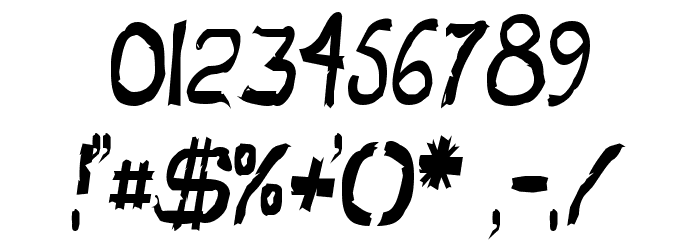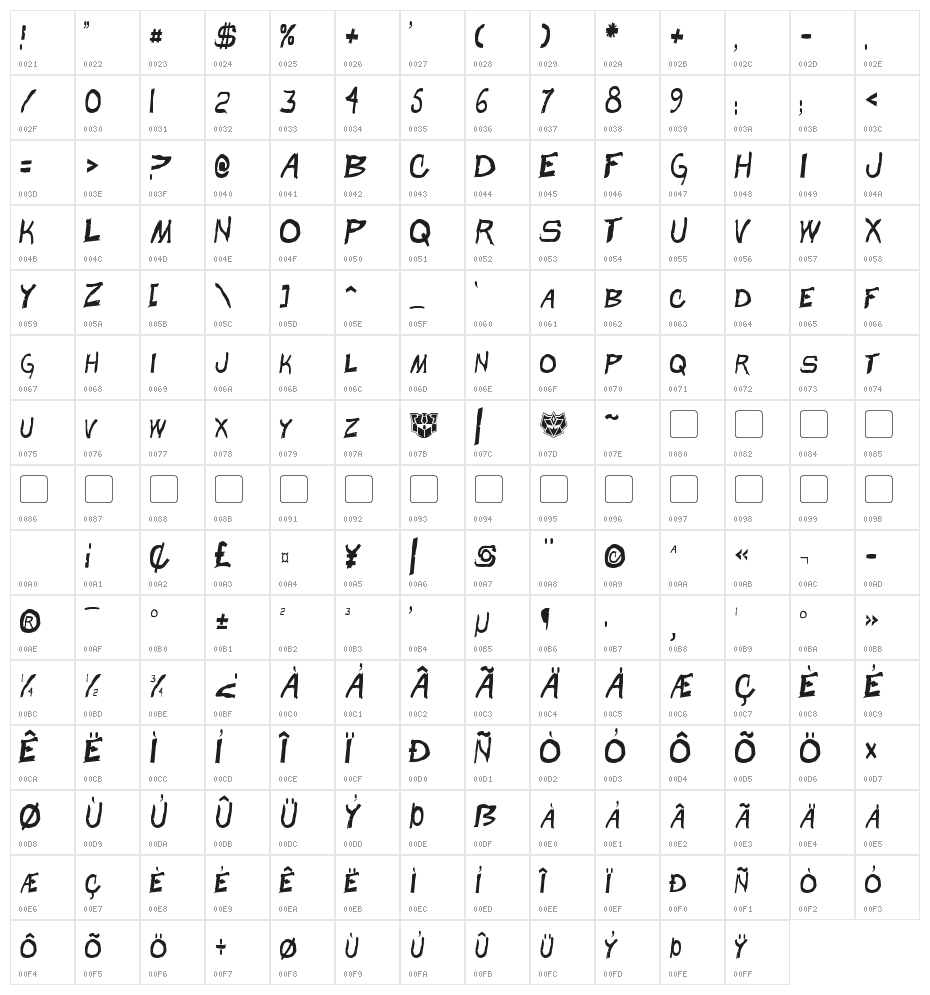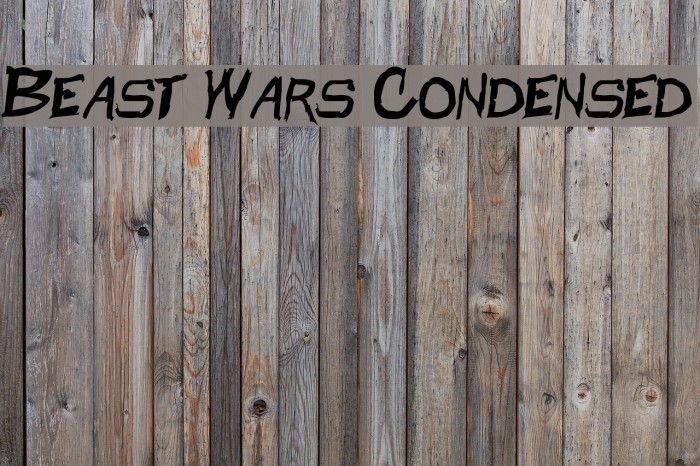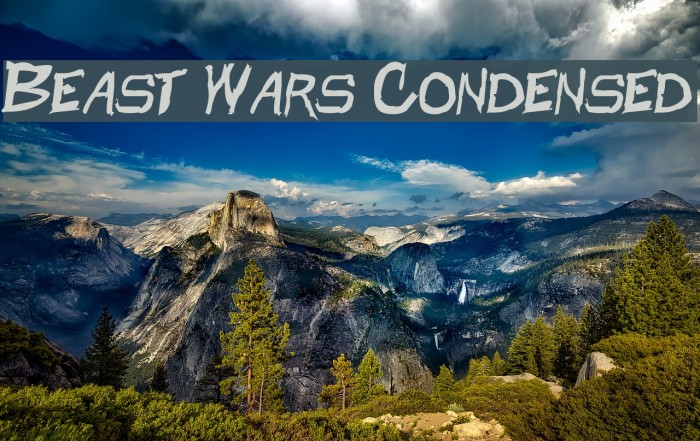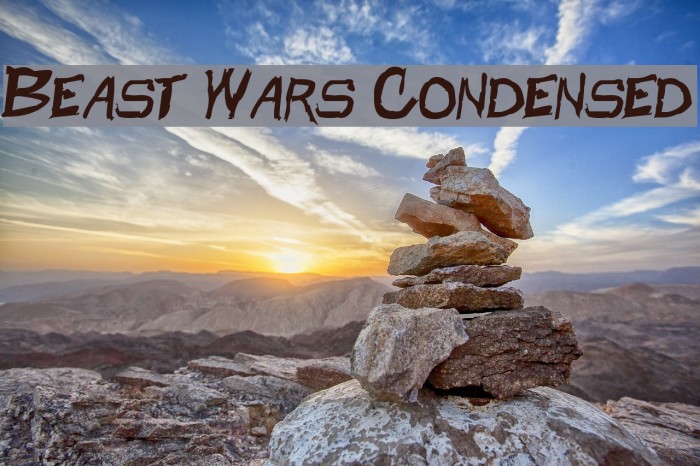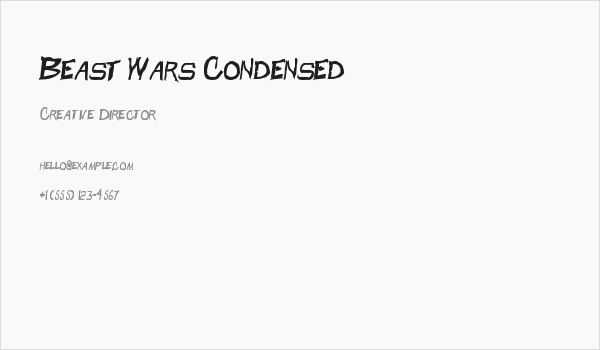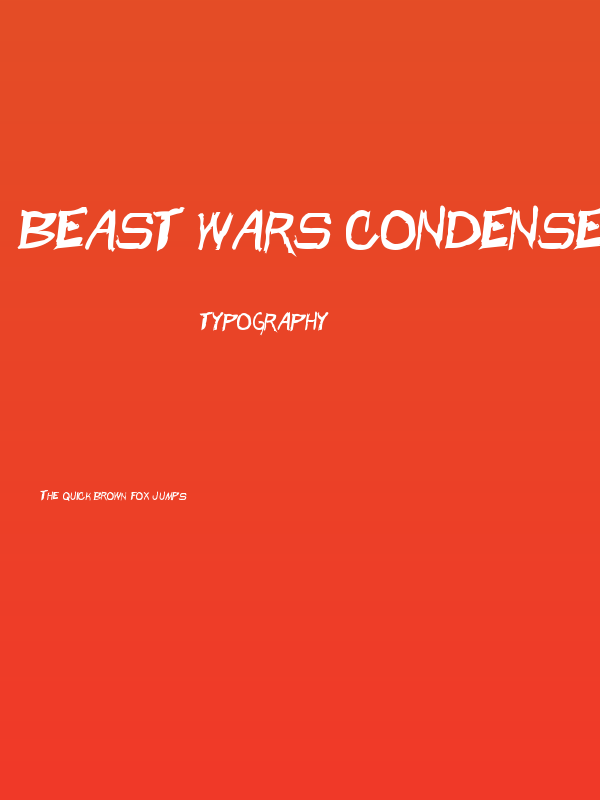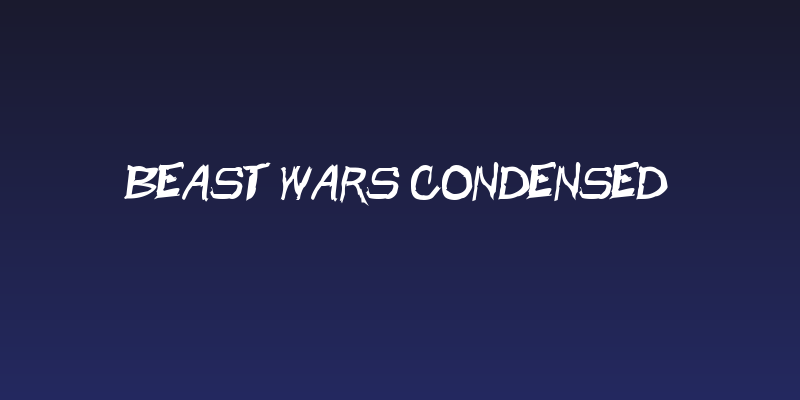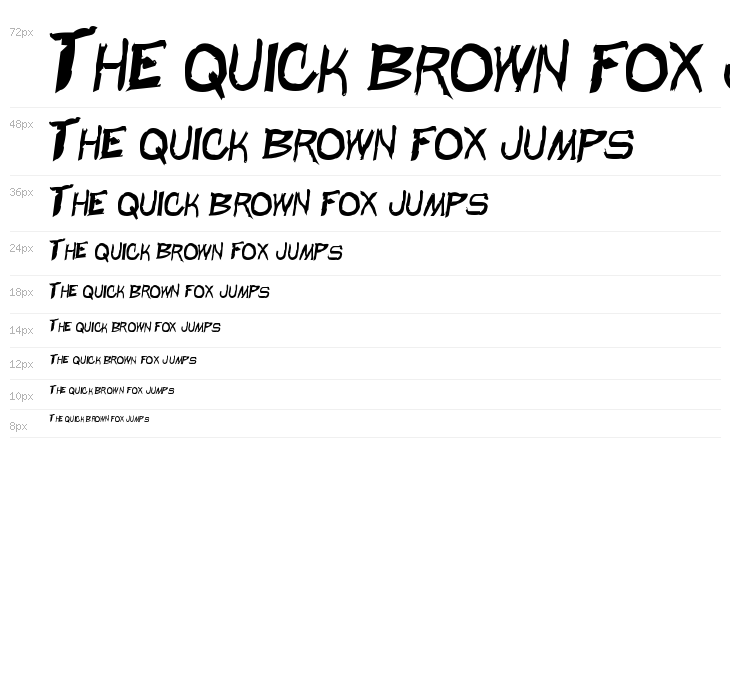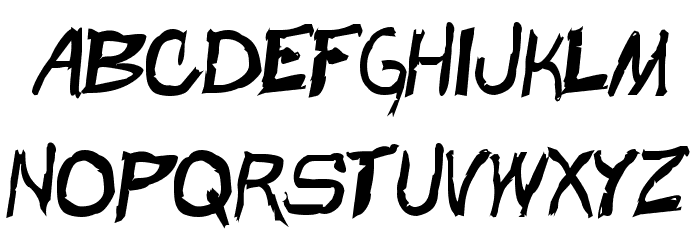
Beast Wars Condensed Font
Beast Wars Condensed Description
This font features a bold and aggressive style with sharp, jagged edges that give it a dynamic and energetic appearance. The characters are slightly condensed, enhancing the compactness while maintaining readability. The strokes are irregular, adding a sense of movement and intensity. This design is reminiscent of a wild, untamed aesthetic, making it suitable for projects that require a strong visual impact. The uppercase and lowercase letters maintain consistency in style, with numerals and special characters following the same rugged theme.
| Proposed Projects | Ideal for use in action-themed posters, video game titles, or branding for extreme sports. |